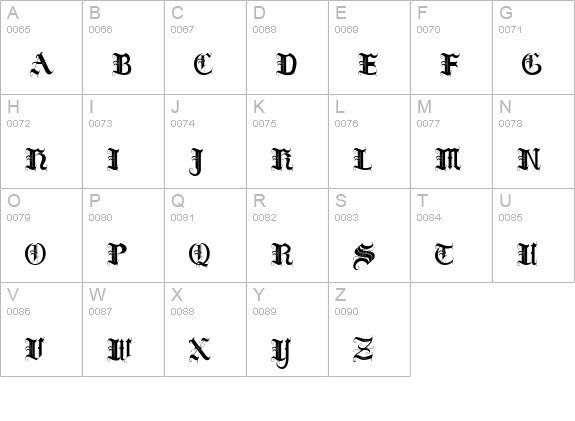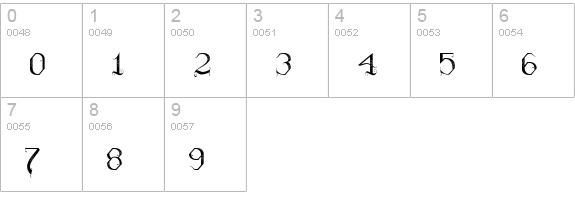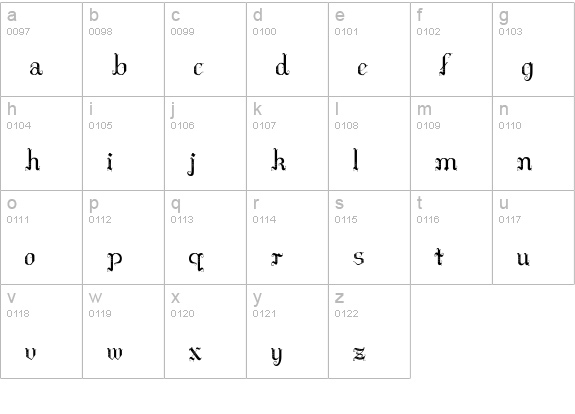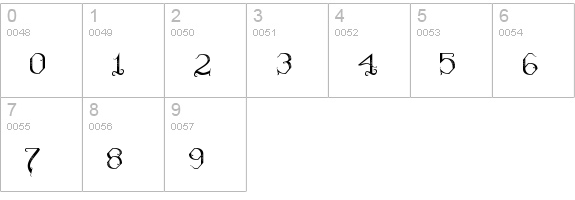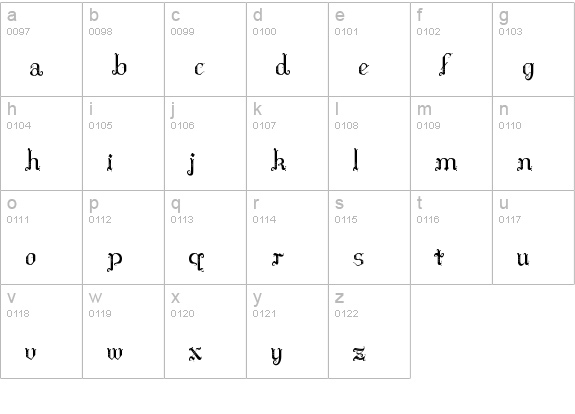
Hilda Sonnenschein Font Details
Introducing Hilda Sonnenschein, a captivating and versatile font that radiates warmth and elegance. Designed with meticulous attention to detail, this typeface effortlessly combines modernity with a touch of whimsy, making it the perfect choice for a wide range of creative projects. With its graceful curves and delicate strokes, Hilda Sonnenschein exudes a sense of timeless beauty. Its carefully crafted letterforms invite the eye to gracefully dance across the page, captivating readers and leaving a lasting impression. Whether used for branding, editorial design, packaging, or signage, this font will elevate any project to new heights of sophistication. But what truly sets Hilda Sonnenschein apart is its accessibility. This extraordinary font is not only visually stunning, but it is also free. Yes, you read that correctly – Hilda Sonnenschein is freely available to download at FontsMarket.com. We believe that great design should be accessible to all, and with Hilda Sonnenschein, you can create stunning visual experiences without breaking the bank. So, whether you're a seasoned designer looking to add a touch of elegance to your latest project, or a novice in search of a font that will make your creations shine, Hilda Sonnenschein is the answer. Its versatility, beauty, and affordability make it the perfect choice for any creative endeavor. Download Hilda Sonnenschein today and let your imagination soar.